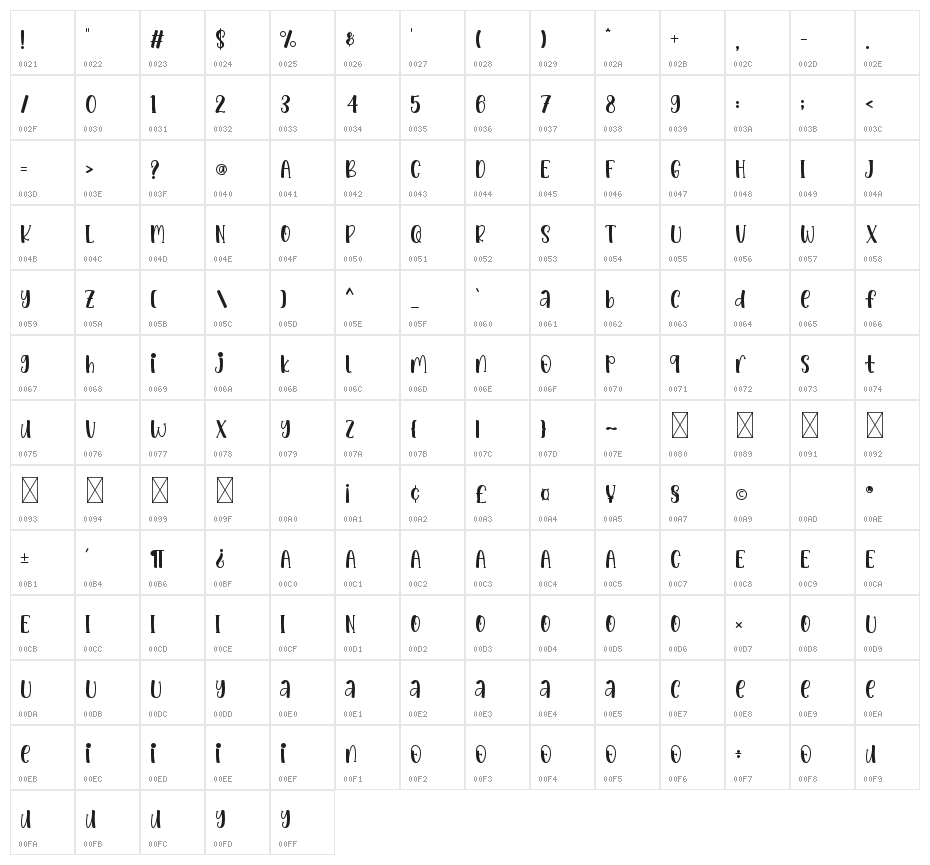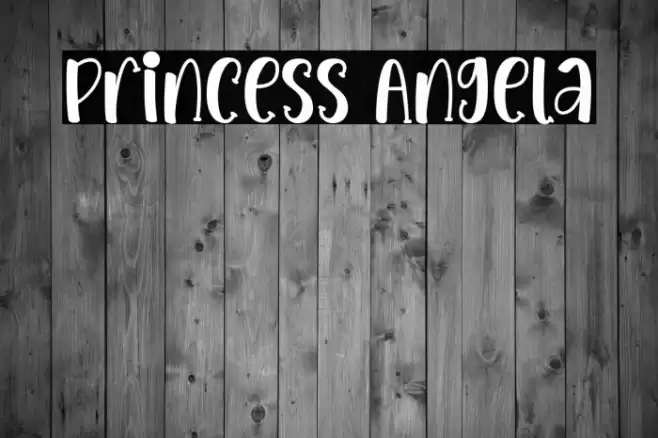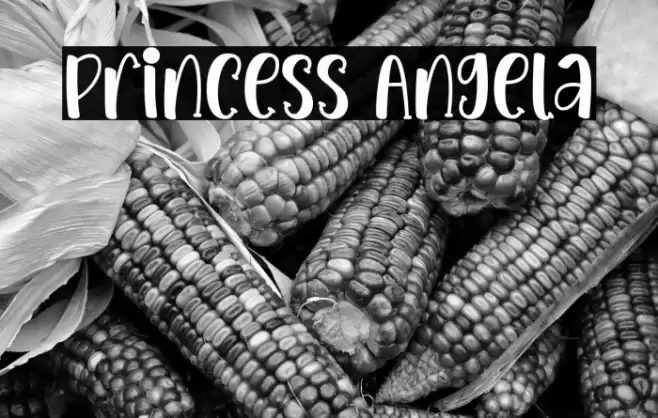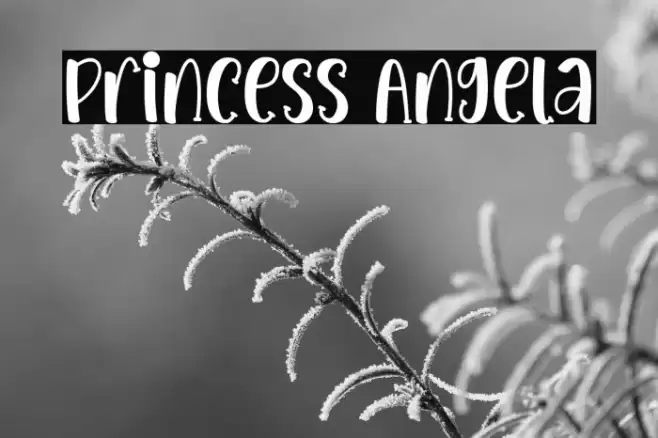
Princess Angela Font
Princess Angela Description
This font features a playful and whimsical design with a handwritten style. The characters have a unique, flowing appearance with varying stroke widths that add a dynamic and lively feel. The uppercase letters are bold and slightly condensed, while the lowercase letters maintain a consistent style with charming curves and loops. The numbers and special characters complement the overall aesthetic, making it suitable for creative and informal projects. The font's distinct personality is perfect for adding a touch of fun and creativity to any design.
| Proposed Projects | Ideal for greeting cards, children's books, playful branding, and creative posters. |